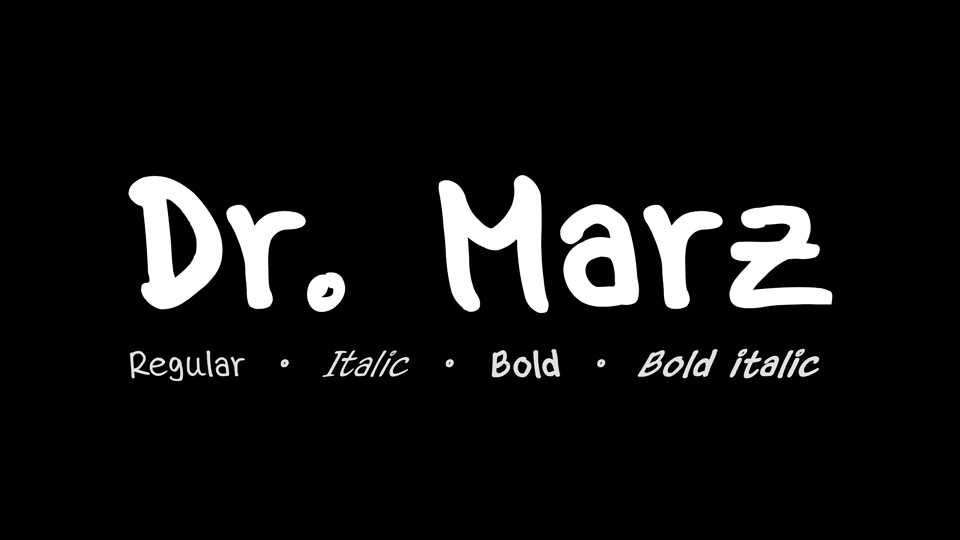
Download Dr. Marz font, a fun handwritten calligraphy script. Dr. Marz is perfect for your cards, comics and other informal projects that you can find.
Designer: Enrique Martinez